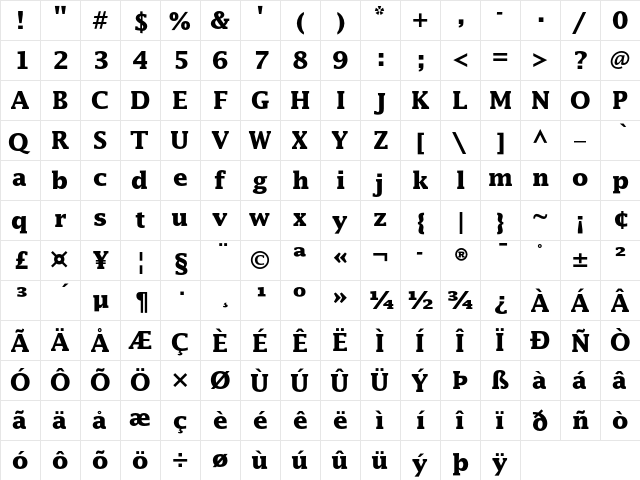
Lucida Bold
Design Context for Lucida Typeface
Lucida is a composed and adaptable typeface that performs quietly and consistently across a wide range of design contexts. Its bold stroke weight gives it real presence on the page.
Pro Tip: Pair Lucida with a font of contrasting weight or personality to build a more expressive typographic hierarchy.